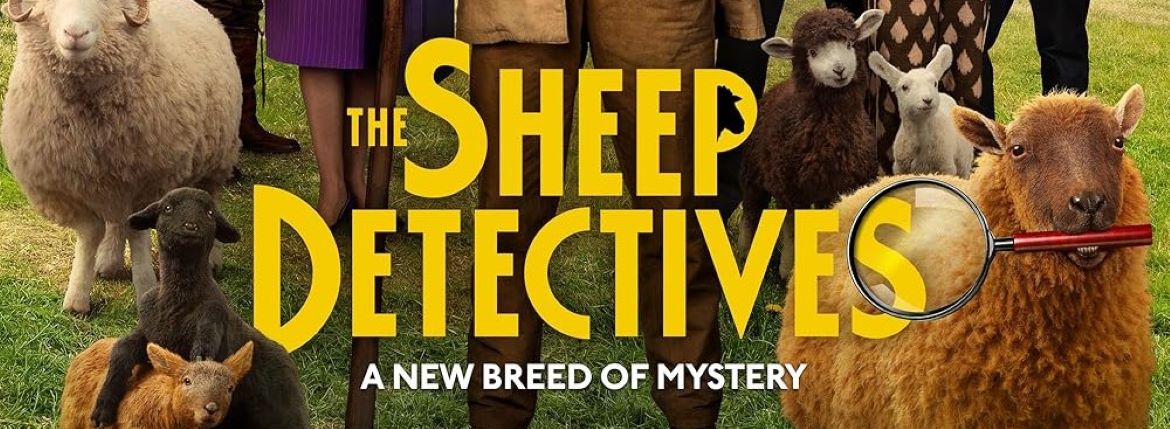
The Sheep Detectives Font
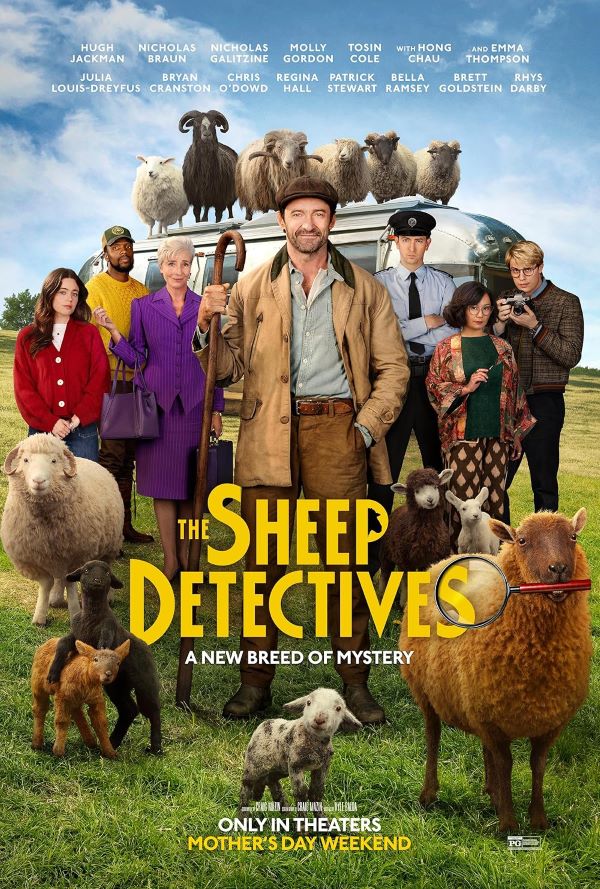
The Sheep Detectives uses Washington Bold, a premium typeface that delivers commanding presence and structural clarity for display applications. The font features bold, geometric letterforms with refined proportions that work exceptionally well in titles, branding, and cover designs. Built on solid construction and deliberate spacing, Washington Bold carries the weight necessary to anchor headlines while maintaining legibility across different sizes. The typeface combines contemporary aesthetics with functional design, making it a preferred choice for projects demanding visual authority and professional polish. Since Washington Bold is a premium commercial font, it requires a license for professional use. However, there are free alternatives available that capture similar bold, structured characteristics, making them ideal for fan art, concept designs, and creative experimentation.
About The Sheep Detectives
The Sheep Detectives is a unique project that blends mystery and visual storytelling through distinctive typographic choices and bold design language. The production demonstrates how careful font selection contributes to establishing atmosphere, narrative tone, and audience engagement across marketing materials and visual communications. The choice of Washington Bold reflects the project’s commitment to clarity and impact, ensuring the title stands out in competitive creative spaces. Typography plays a crucial role in differentiating projects and creating memorable brand identity, which is why designers frequently search for free fonts that capture similar qualities. The Sheep Detectives exemplifies how bold, structural typefaces enhance visual hierarchy and establish immediate recognition, making the typography integral to the project’s overall aesthetic and promotional strategy across posters, digital platforms, and design materials.